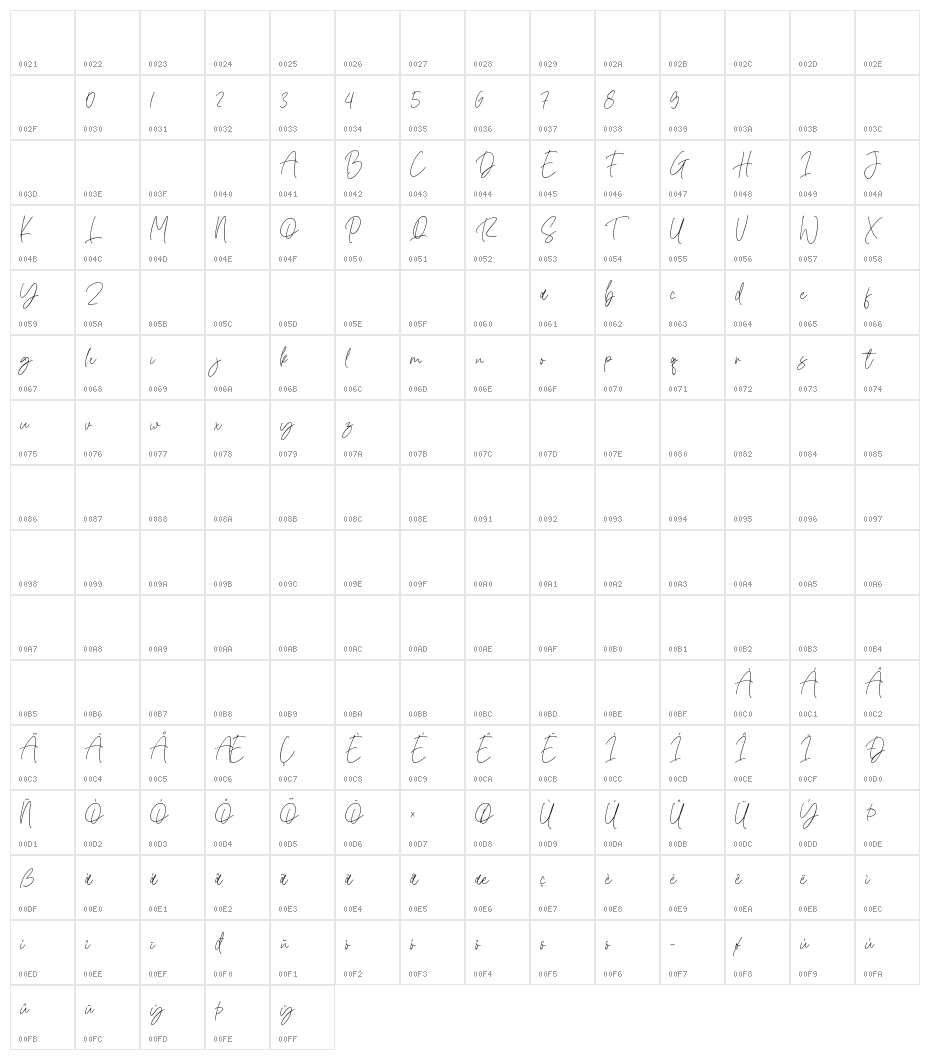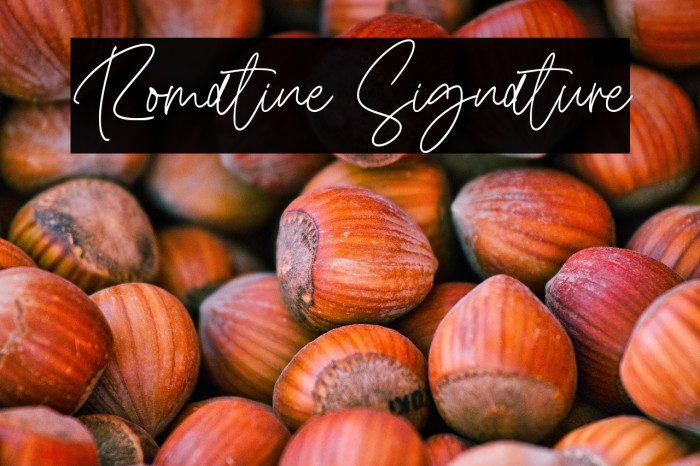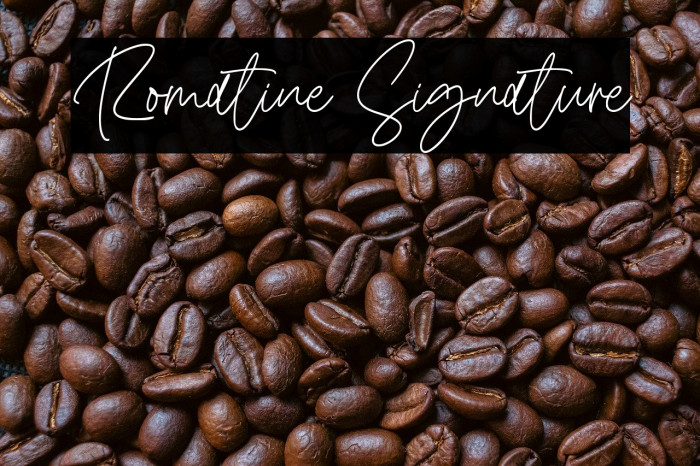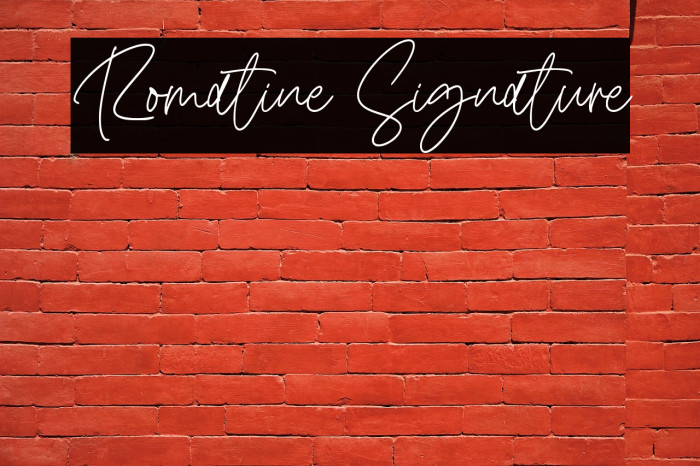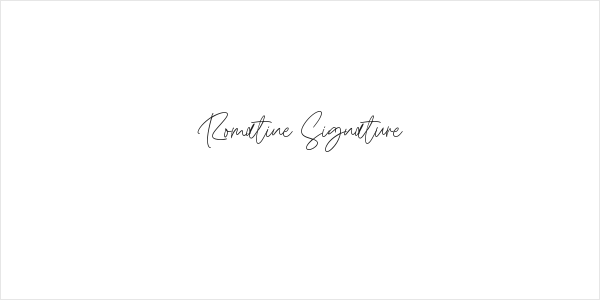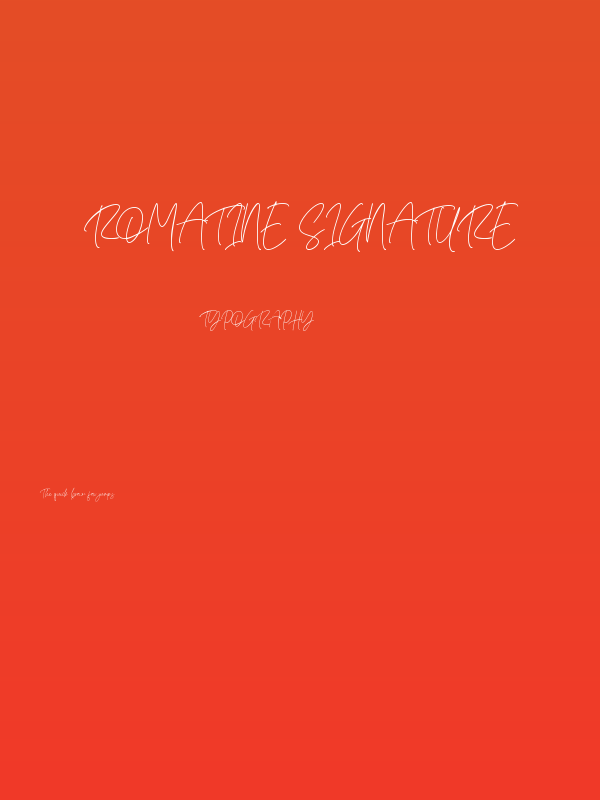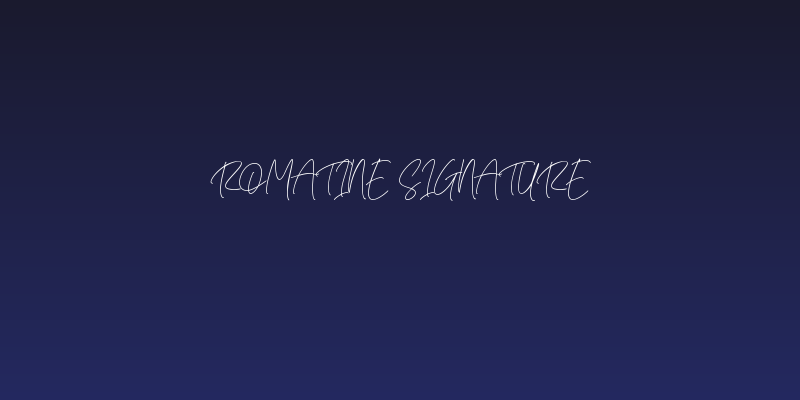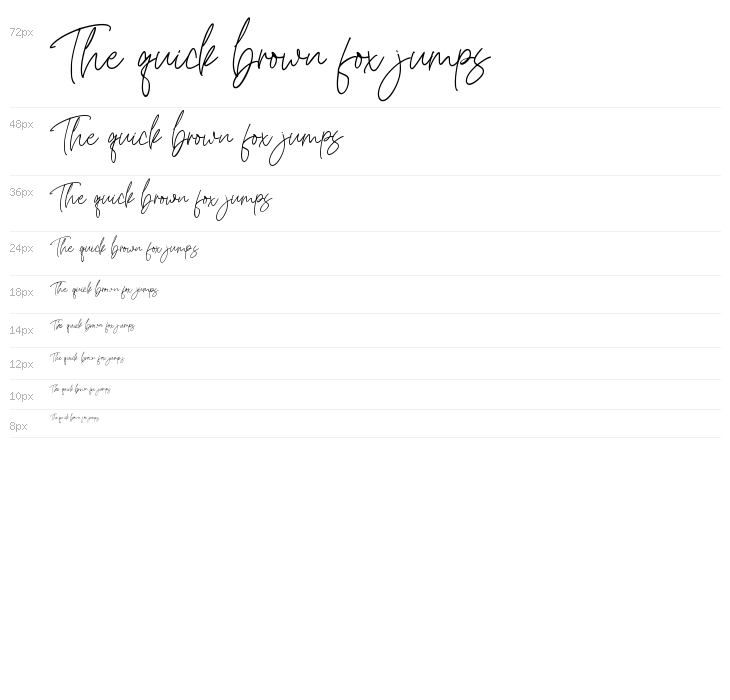
Romatine Signature Font
Romatine Signature Description
A flowing, elegant script font with a handwritten style, featuring smooth curves and a personal touch.
| Use Case | Logos, Invitations, Signatures |
| Proposed Projects | Invitations, branding, signatures. |